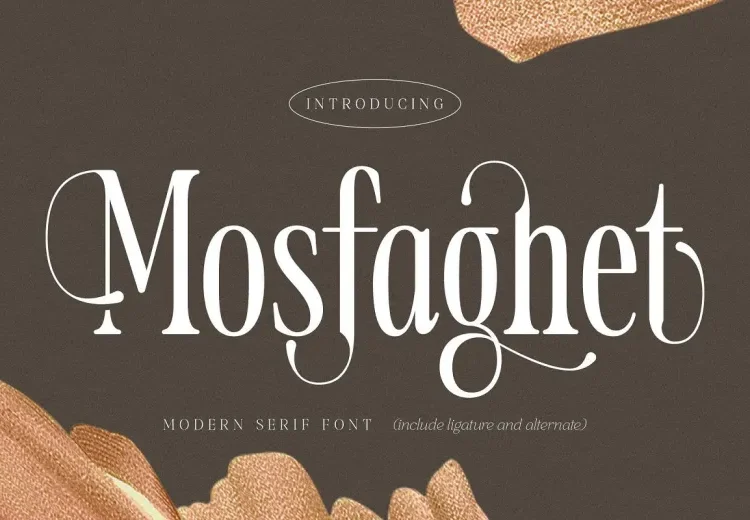
Mosfaghet Font
Mosfaghet is a striking modern serif typeface that perfectly balances contemporary design with timeless appeal. Its unique letterforms make it ideal for a wide range of design projects, adding a sophisticated and stylish touch to any creative endeavor.
Whether you’re designing logos, movie or book titles, fashion label clothing, magazine pages, or crafting beautiful quotes, Mosfaghet offers versatility and elegance. The font’s distinct design ensures that it stands out in any context, making it perfect for projects that require a bold yet refined typeface.
Ideal for both digital and print applications, Mosfaghet can elevate your design by bringing attention-grabbing aesthetics to any project. From branding to editorial layouts, its sharp features and luxurious character make it an excellent choice for those looking to make a lasting impression.